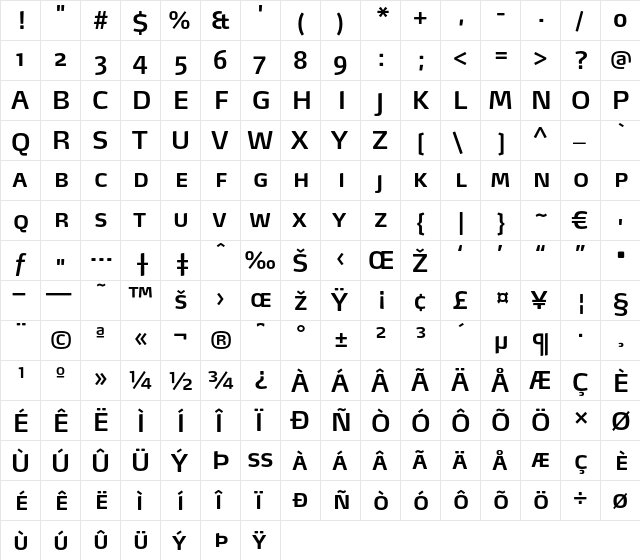
Max-SemiBoldSC Regular Font Preview
Max-SemiBoldSC Regular
Max-SemiBoldSC Regular Font Details
Design Context for Max-SemiBoldSC Typeface
Max-SemiBoldSC is a composed and adaptable typeface that performs quietly and consistently across a wide range of design contexts. The heavy weight commands attention and anchors typographic hierarchies.